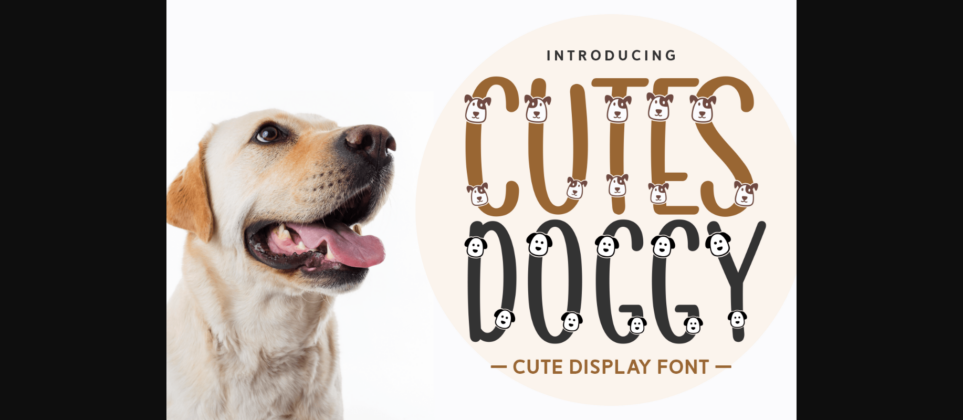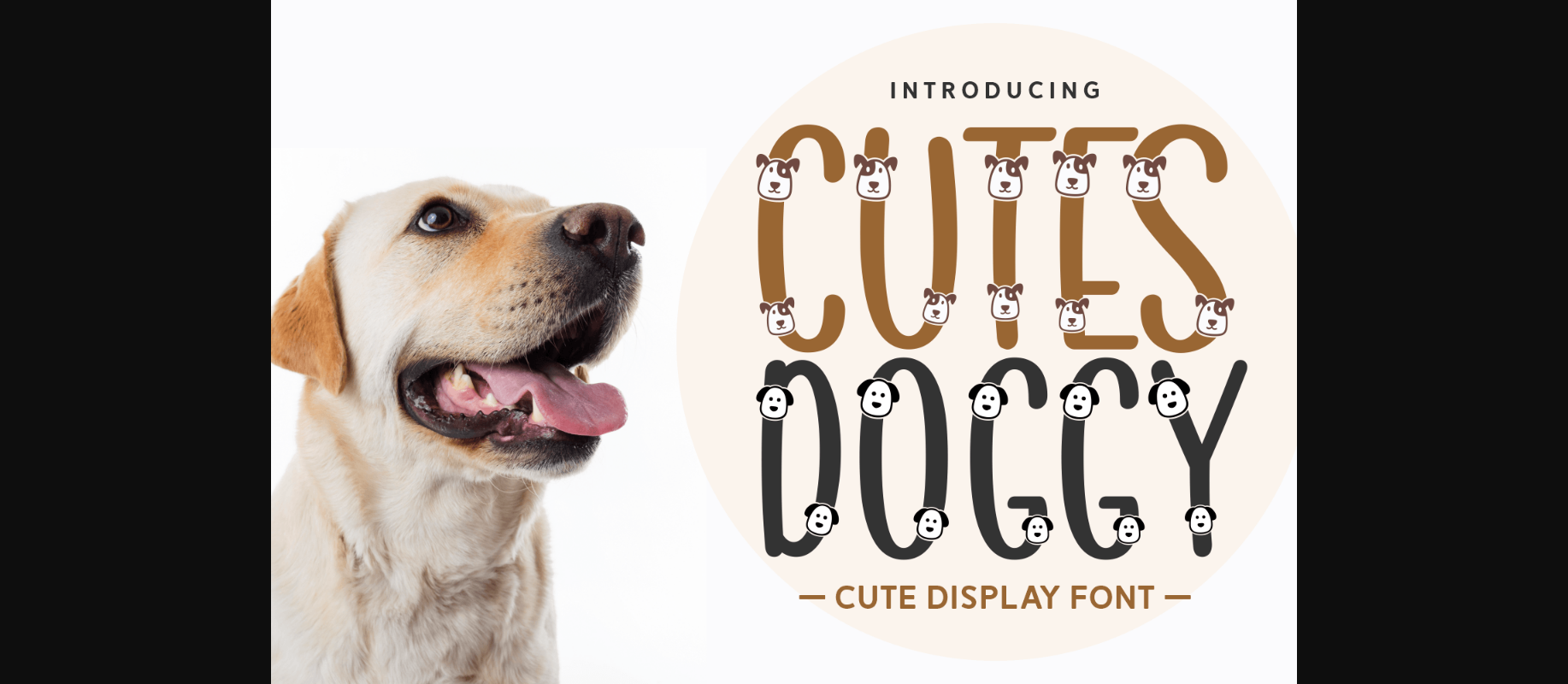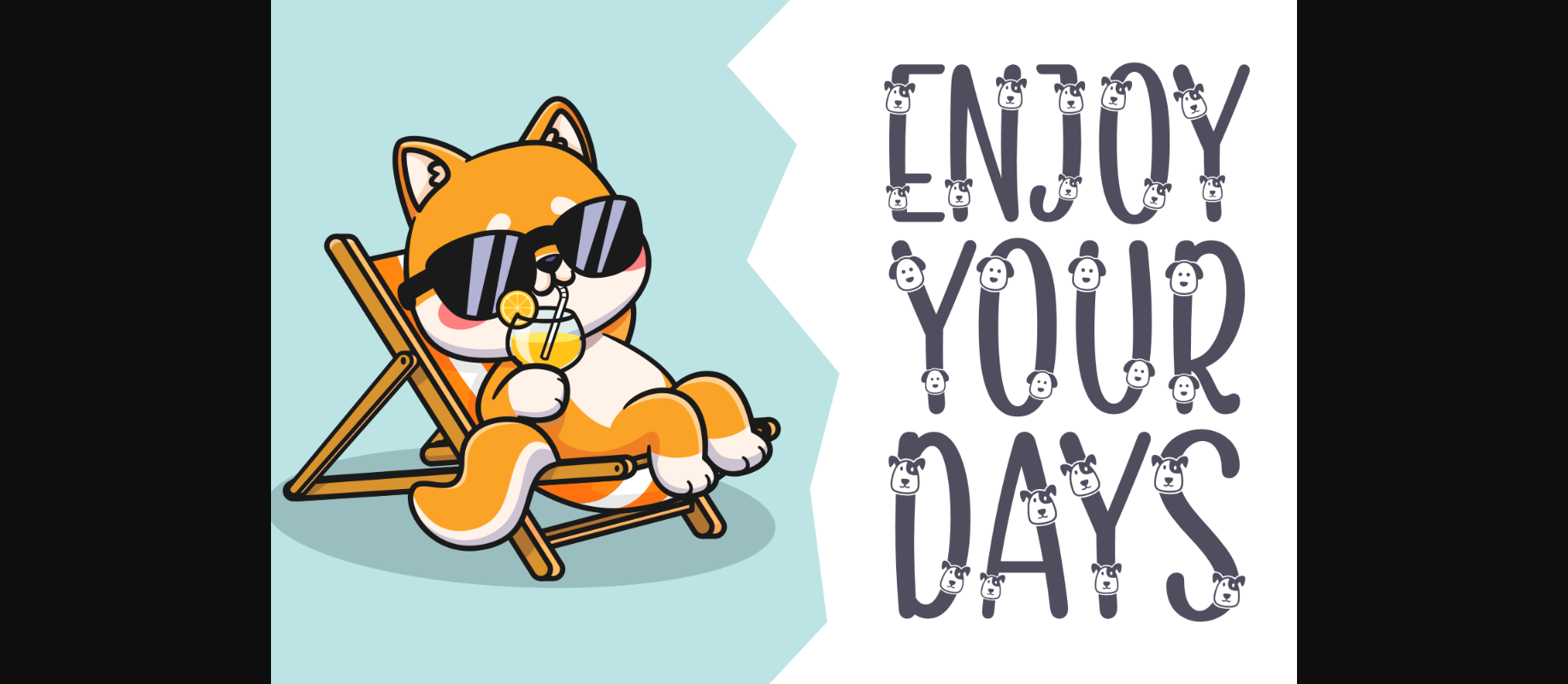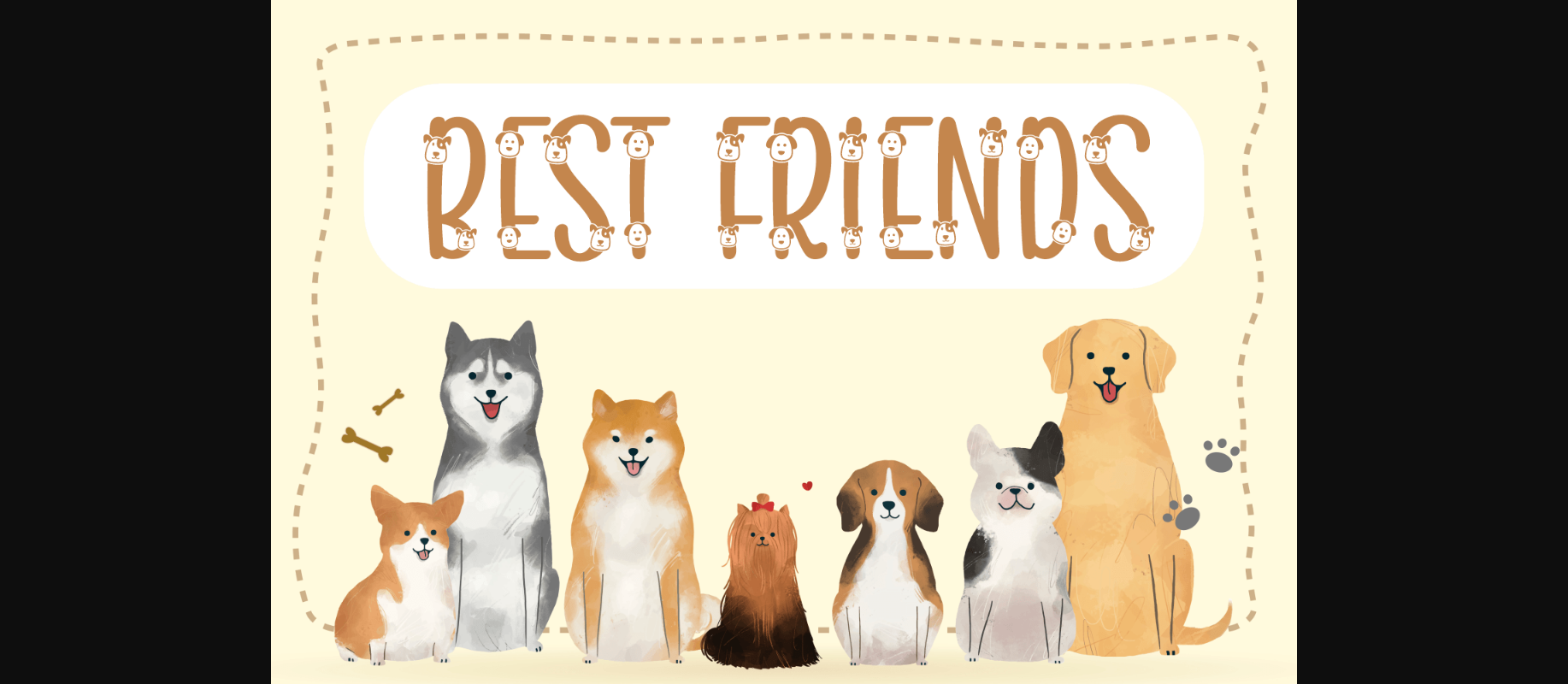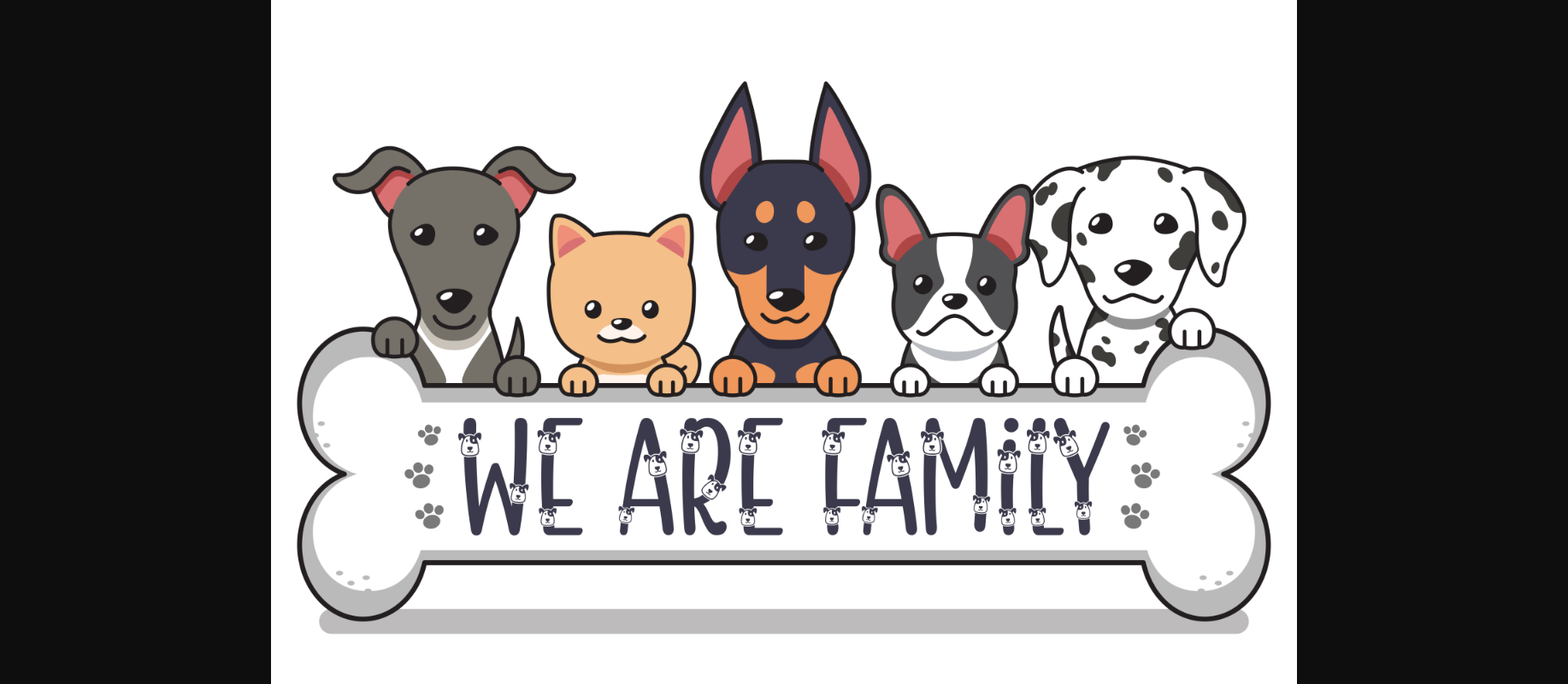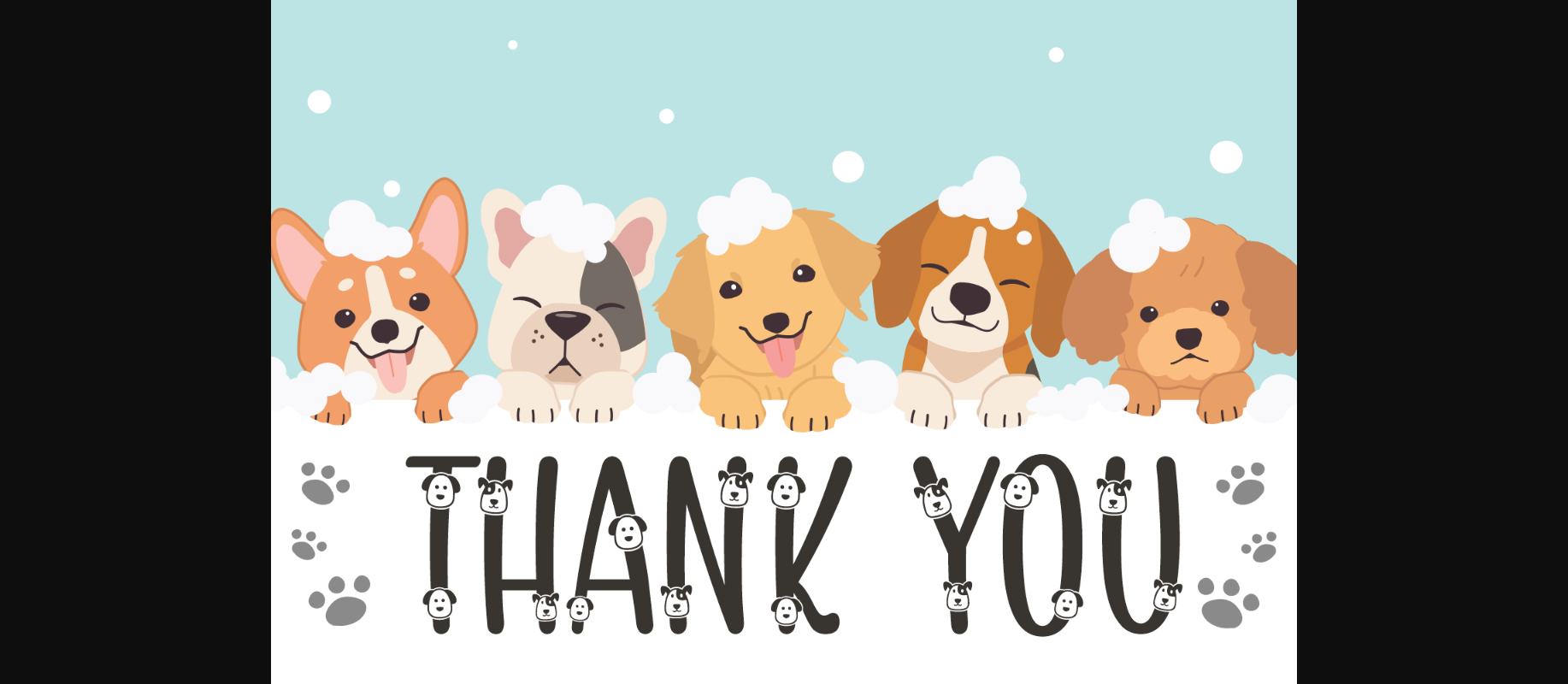
HomeDecorative FontsCutes Doggy Font Decorative Fonts Cutes Doggy Font FacebookXPinterestWhatsApp 1 of 7 ... Cutes Doggy Font Poster 2... Cutes Doggy Font Poster 3... Cutes Doggy Font Poster 4... Cutes Doggy Font Poster 5... Cutes Doggy Font Poster 6... Cutes Doggy Font Poster 7... About Cutes Doggy Font Cutes Doggy is an adorable decorative font, perfect for dog lovers! These cute little puppy faces are ideal for branding and advertising veterinary clinics, dog grooming centers, pet shops, and many more. DOWNLOAD NOW People also explored Aristelle Amooliya Font Marlena Font Louella Font Monezt Font Hockleys Font Dream Catcher Font Bokeseni Book Expanded Font Birthday Font 293 0 TagsCutes Doggy Font Previous articleGracela Mersa FontNext articleBeauty Reason Font LEAVE A REPLY Cancel reply Comment: Please enter your comment! Name:* Please enter your name here Email:* You have entered an incorrect email address! Please enter your email address here Website: Save my name, email, and website in this browser for the next time I comment. Personal Use Free Amelline Personal Use Free Read more about this font Concrete Wall Personal Use Free Read more about this font Groomer Personal Use Free Read more about this font Diland Personal Use Free Read more about this font BLOG How to Cut Any Font on Cricut: Convert a Font to SVG (Free) Turn any font into a clean SVG so it cuts crisp on Cricut - a quick 3-step workflow using a free font-to-SVG tool. Best Fonts for YouTube Videos: Make Your Thumbnails Stand Out Where to Buy American Fonts Online in 2024 Free Fonts Risk: Why Free Fonts Can Be Dangerous for Designers